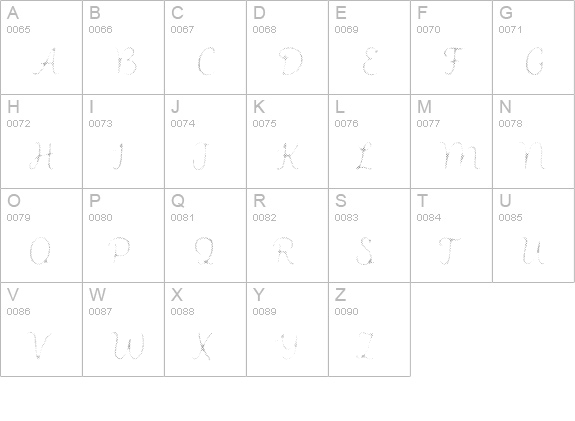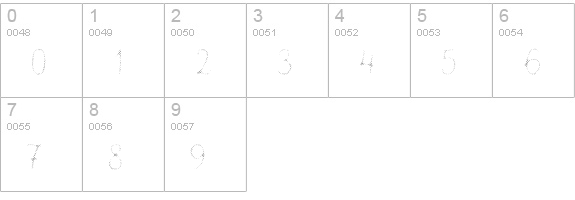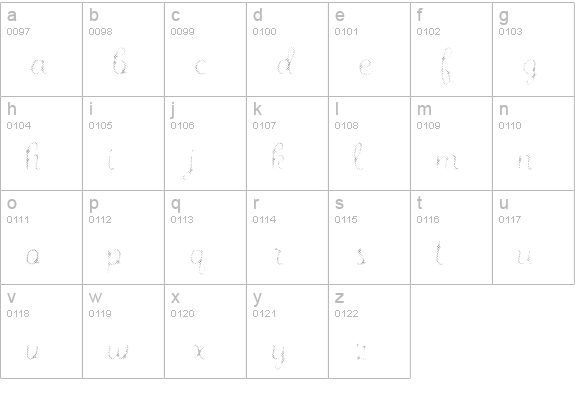
Intro Script R H1 Font Details
The Intro Script R H1 font is a stunning and elegant typeface that exudes sophistication and style. With its intricate details and graceful curves, this font is perfect for adding a touch of luxury to any design project. Whether you're creating wedding invitations, branding materials, or elegant signage, Intro Script R H1 will elevate your work to the next level. What's even better is that this exquisite font is available for free download at FontsMarket.com. You can easily add this beautiful typeface to your font collection without any cost, making it a fantastic choice for both personal and commercial use. Don't miss out on the opportunity to enhance your designs with the timeless beauty of Intro Script R H1 font - download it now and start creating stunning visuals today!